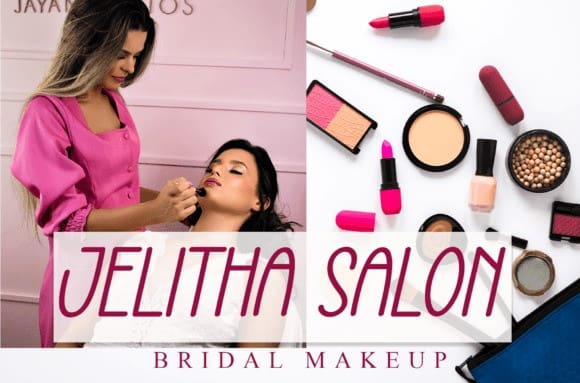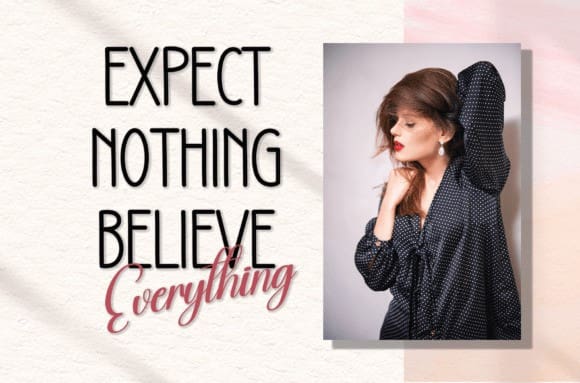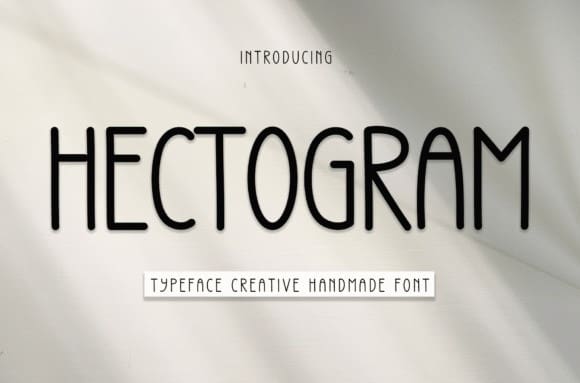
Hectogram Font
Hectogram Font is a sweet and friendly handwritten font. Fresh and neat, this font is ideal for writing wedding invitations, cards, or any other design that might need a fun touch!